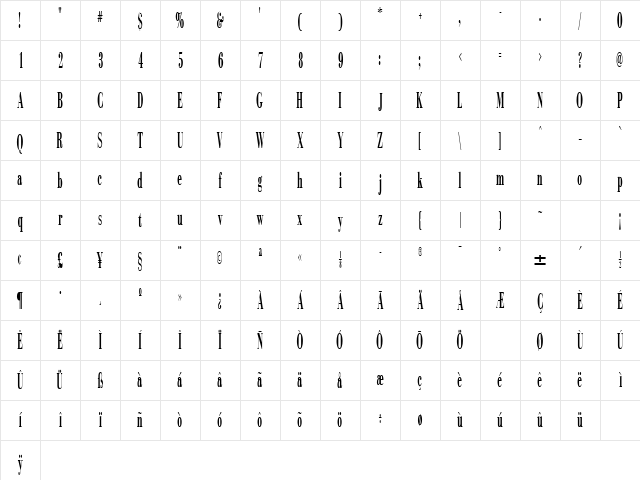
SinemaDisplayExtraCondSSK is built around its visual character rather than neutral utility - its distinctive forms are designed to make an impression at display sizes.
Font Pairing: Pair with a clean neutral sans-serif for body copy to let SinemaDisplayExtraCondSSK's character lead without overwhelming the composition.
Pro Tip: Use SinemaDisplayExtraCondSSK exclusively at display sizes - it was designed to be seen, not read at length. Let a neutral companion handle body copy.